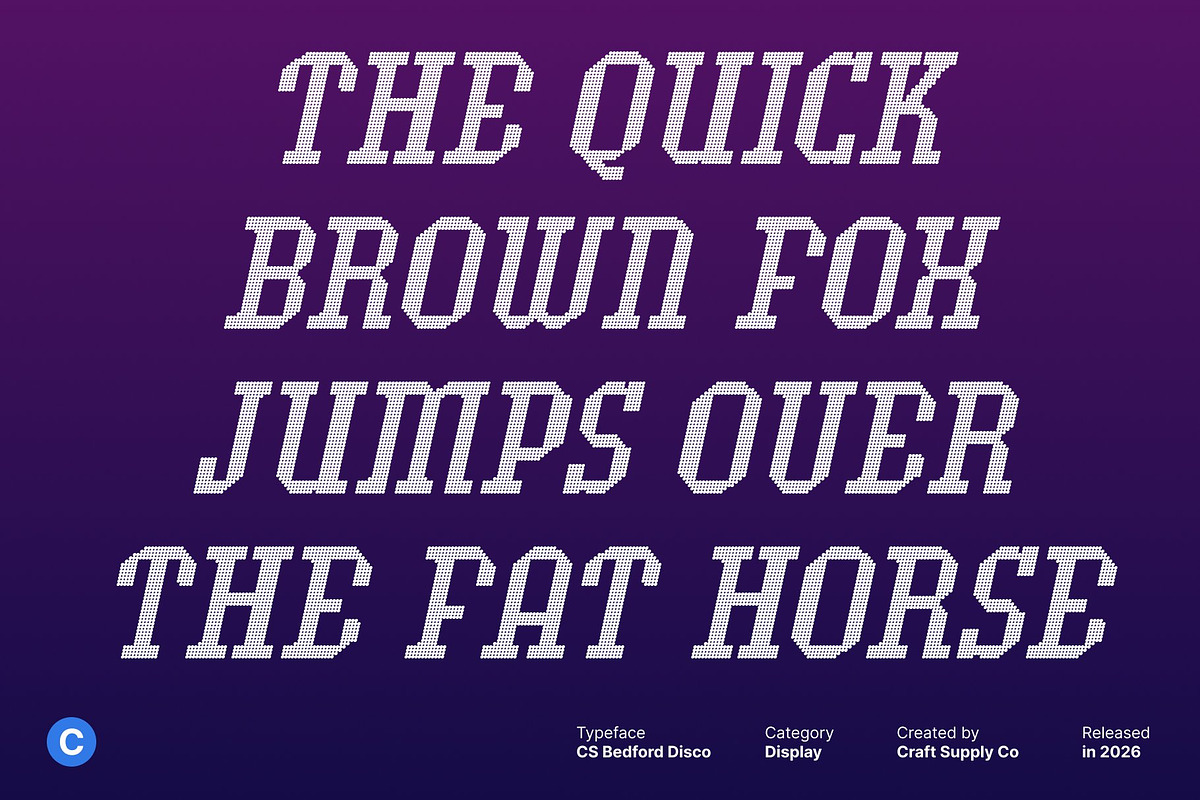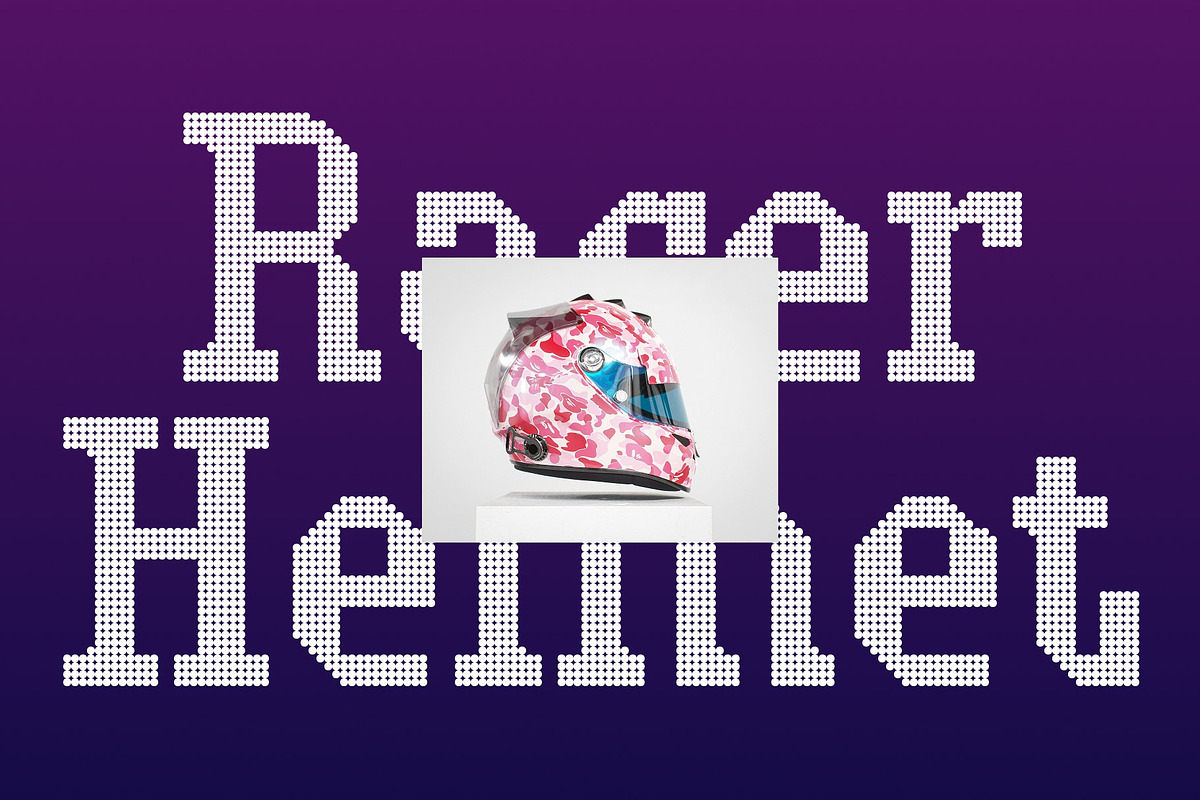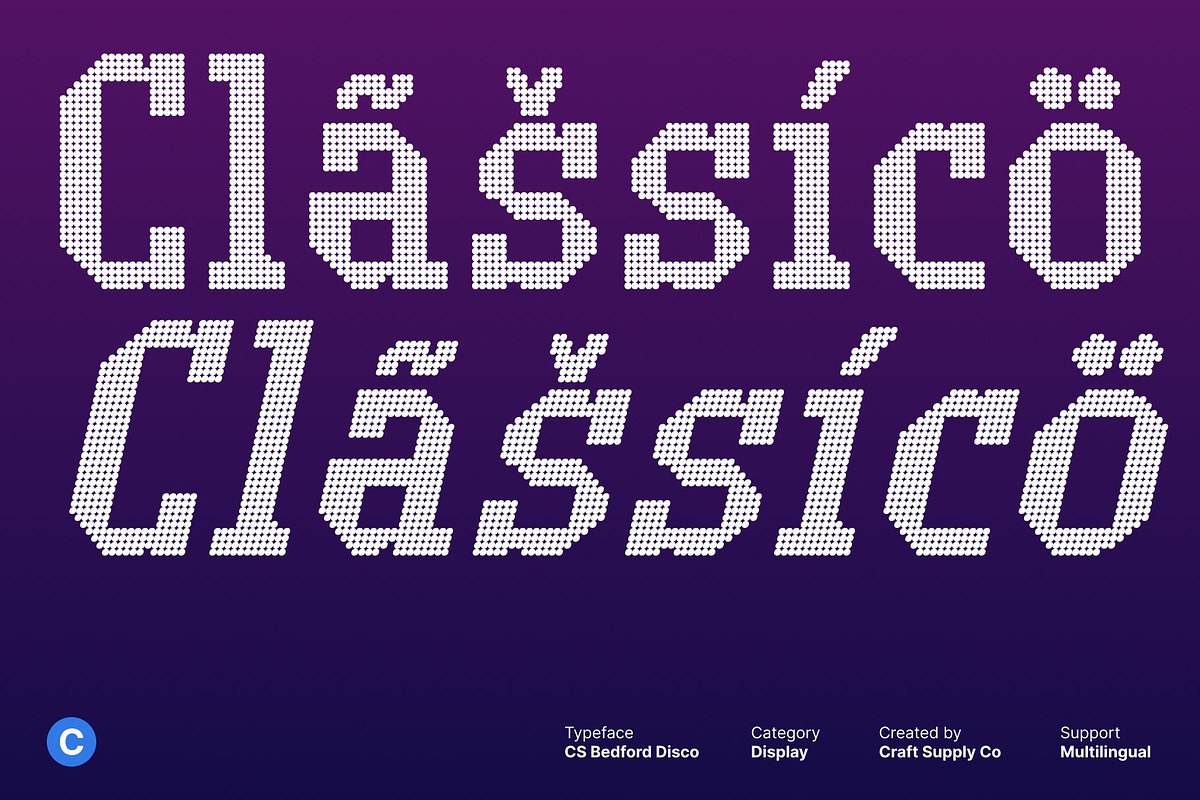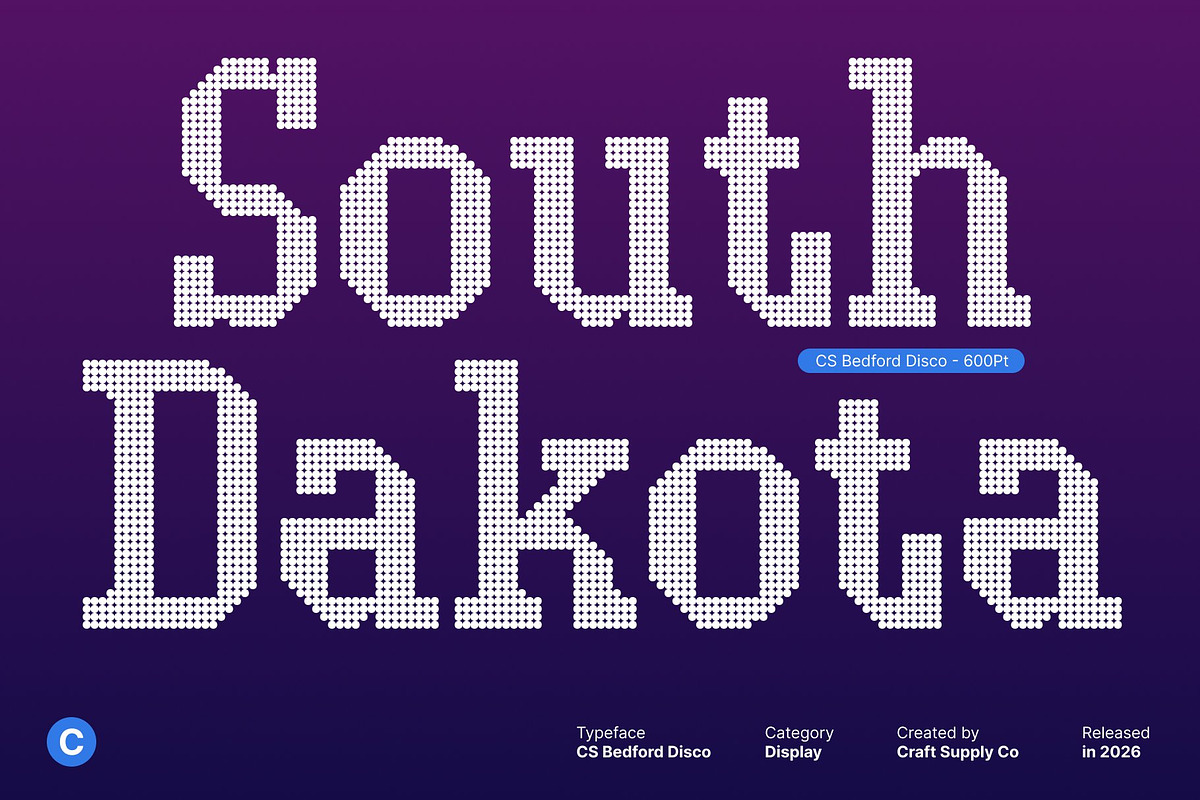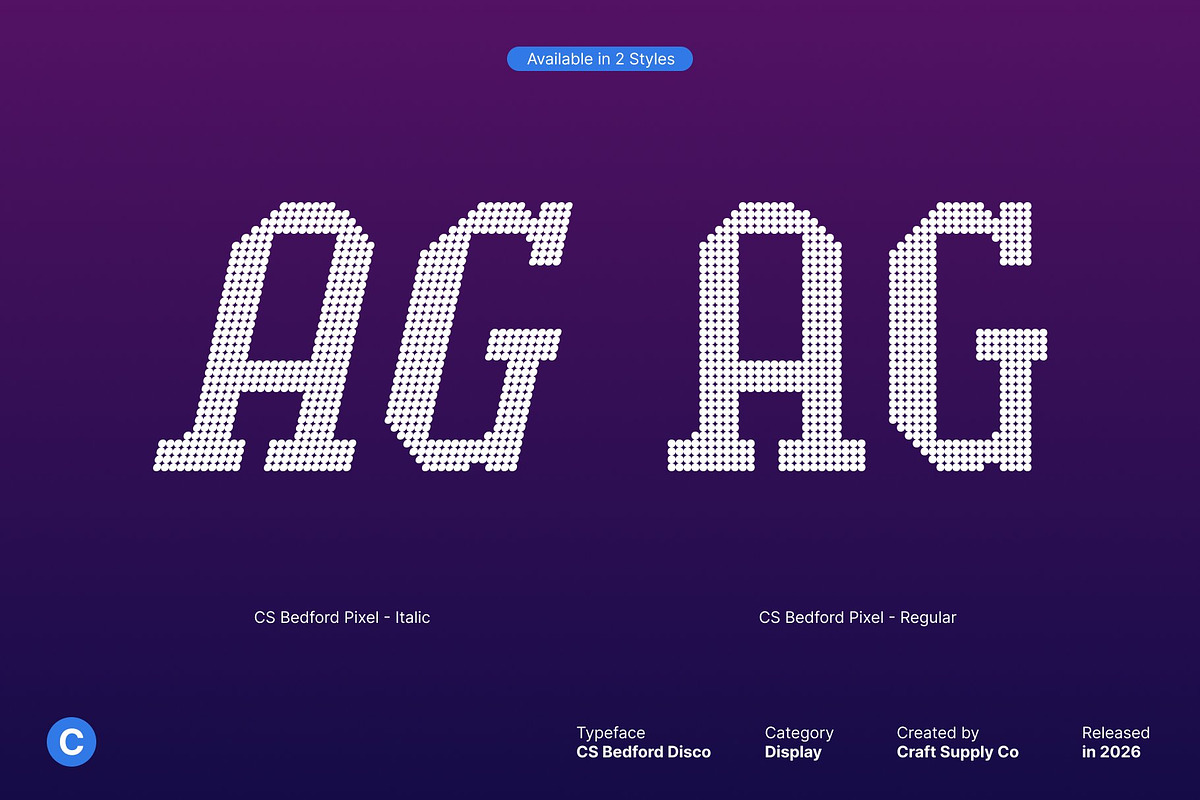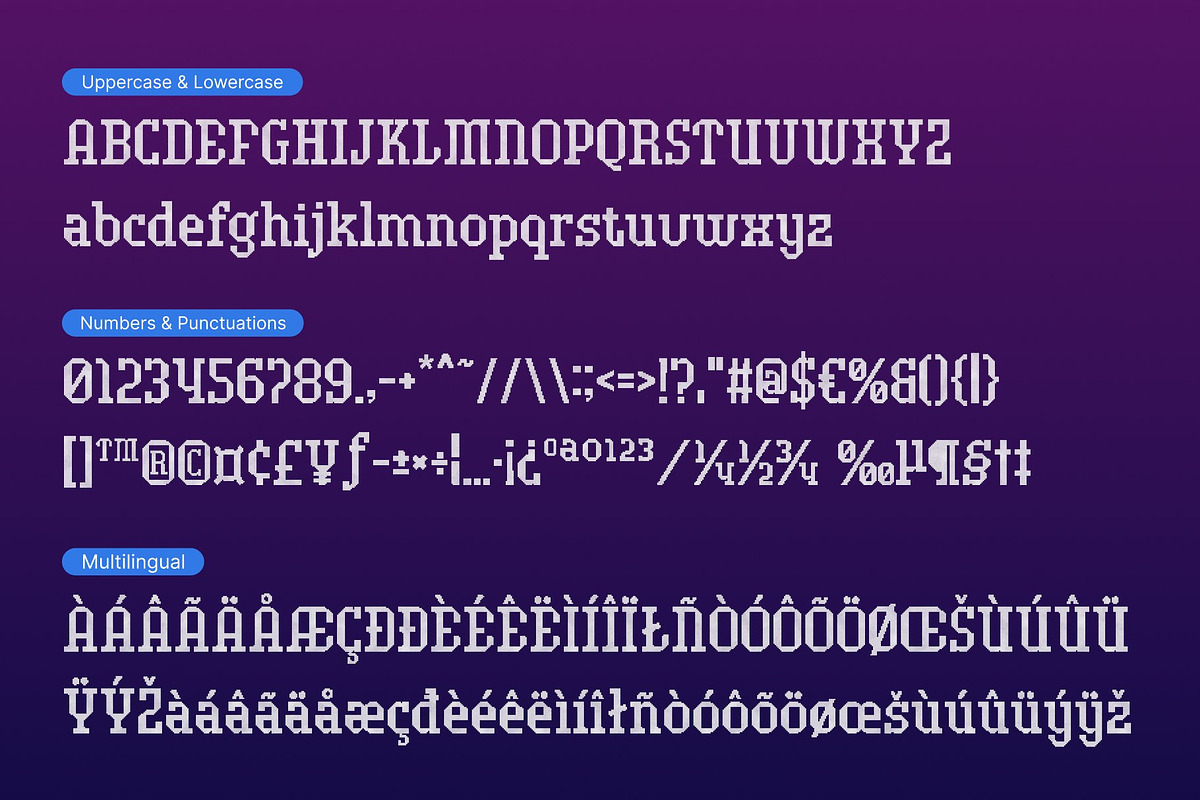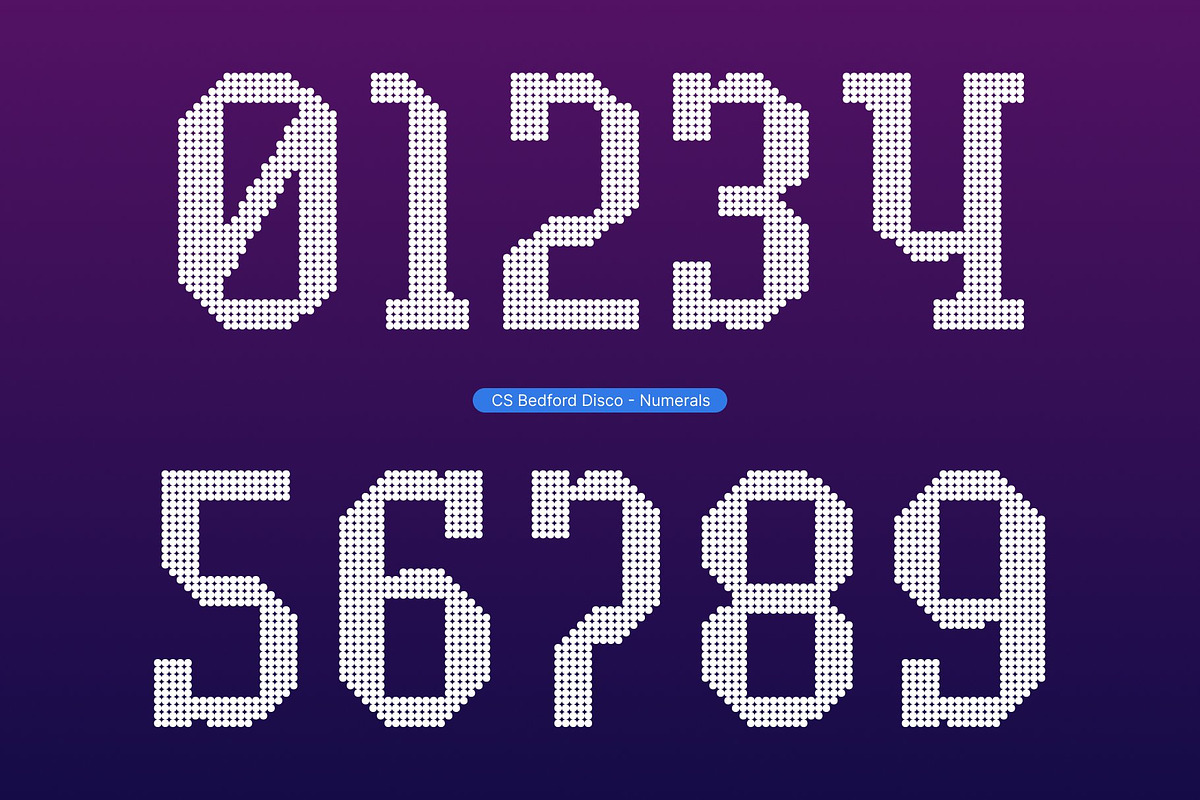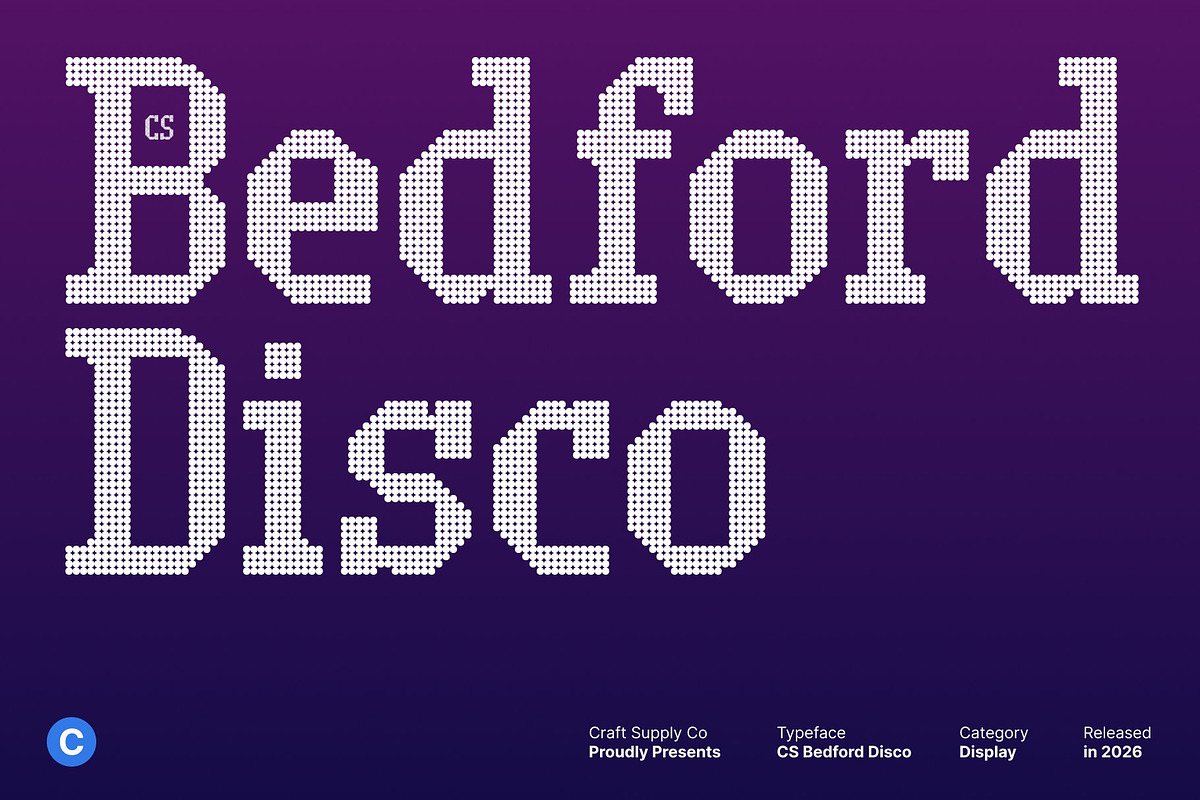
CS Bedford Disco
CS Bedford Disco – Futuristic Slab Serif with Industrial Party Power
Modern Slab Serif with Futuristic Disco Edge This is a modern slab serif font that fuses futuristic design with bold, industrial-inspired strength and disco-era energy. Its assertive letterforms project confidence and impact, while subtle rhythmic styling gives the font a dynamic, spotlight-ready presence. The result is typography that feels powerful, modern, and built to stand out.
Commanding Structure for High-Impact Display Built on strong geometric foundations and heavy slab serifs, this font delivers maximum clarity and authority. Its structured forms hold up perfectly in large-scale applications, while the disco influence adds movement and visual punch ideal for designs that need to feel loud, bold, and unforgettable.
Industrial Strength with Nightlife Attitude The architectural, industrial feel of this font communicates stability and power, while its energetic personality brings a sense of motion and celebration. This balance creates a typeface that feels both professional and expressive, perfect for modern brands and event-driven visuals.
Perfect for Headlines, Posters, and Bold Branding This font shines in headlines, posters, billboards, logos, and promotional materials. Its futuristic slab serif style and disco-powered confidence make it ideal for branding, editorial design, nightlife campaigns, and large-format visuals that demand attention and leave a lasting impression.